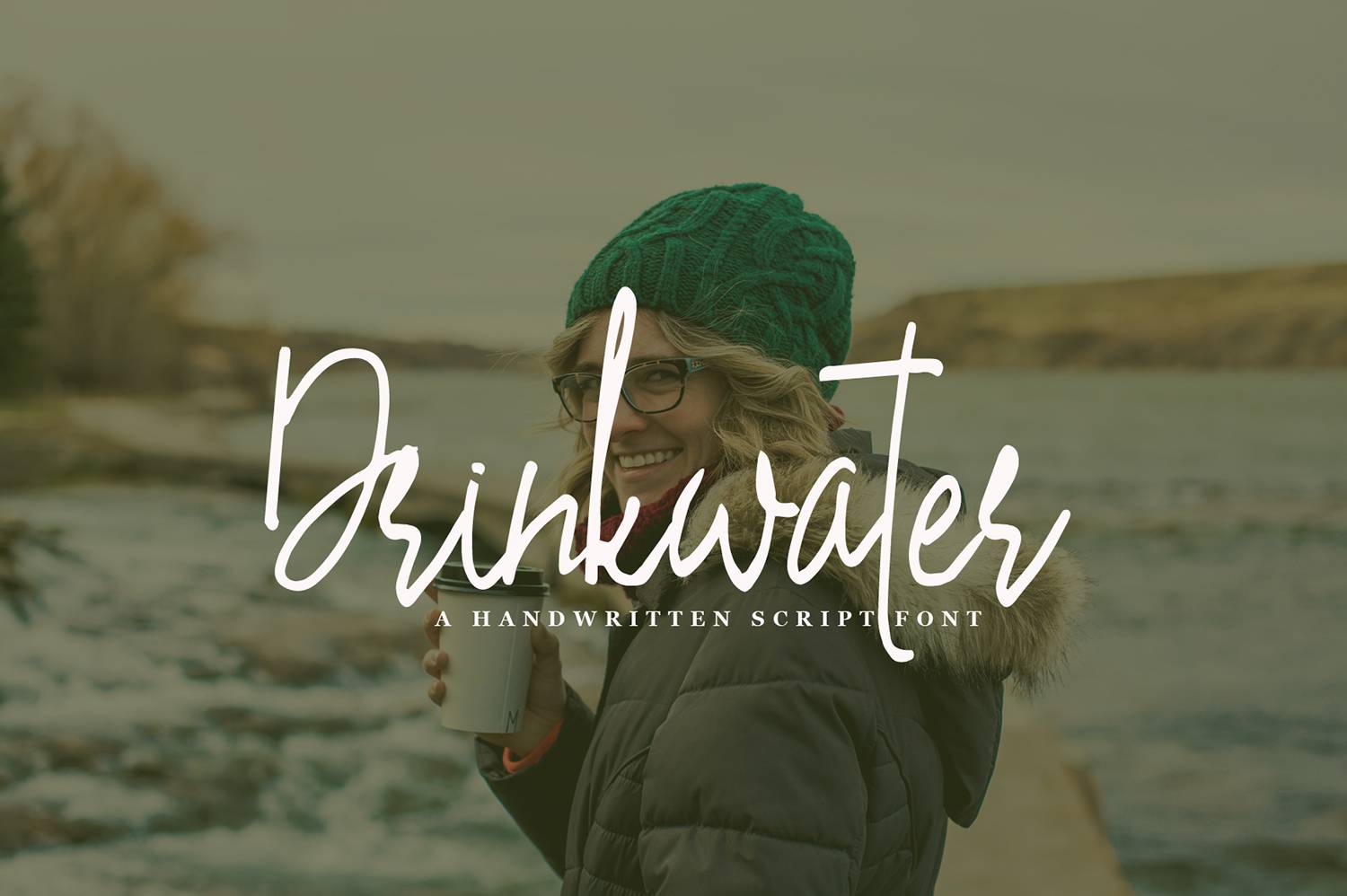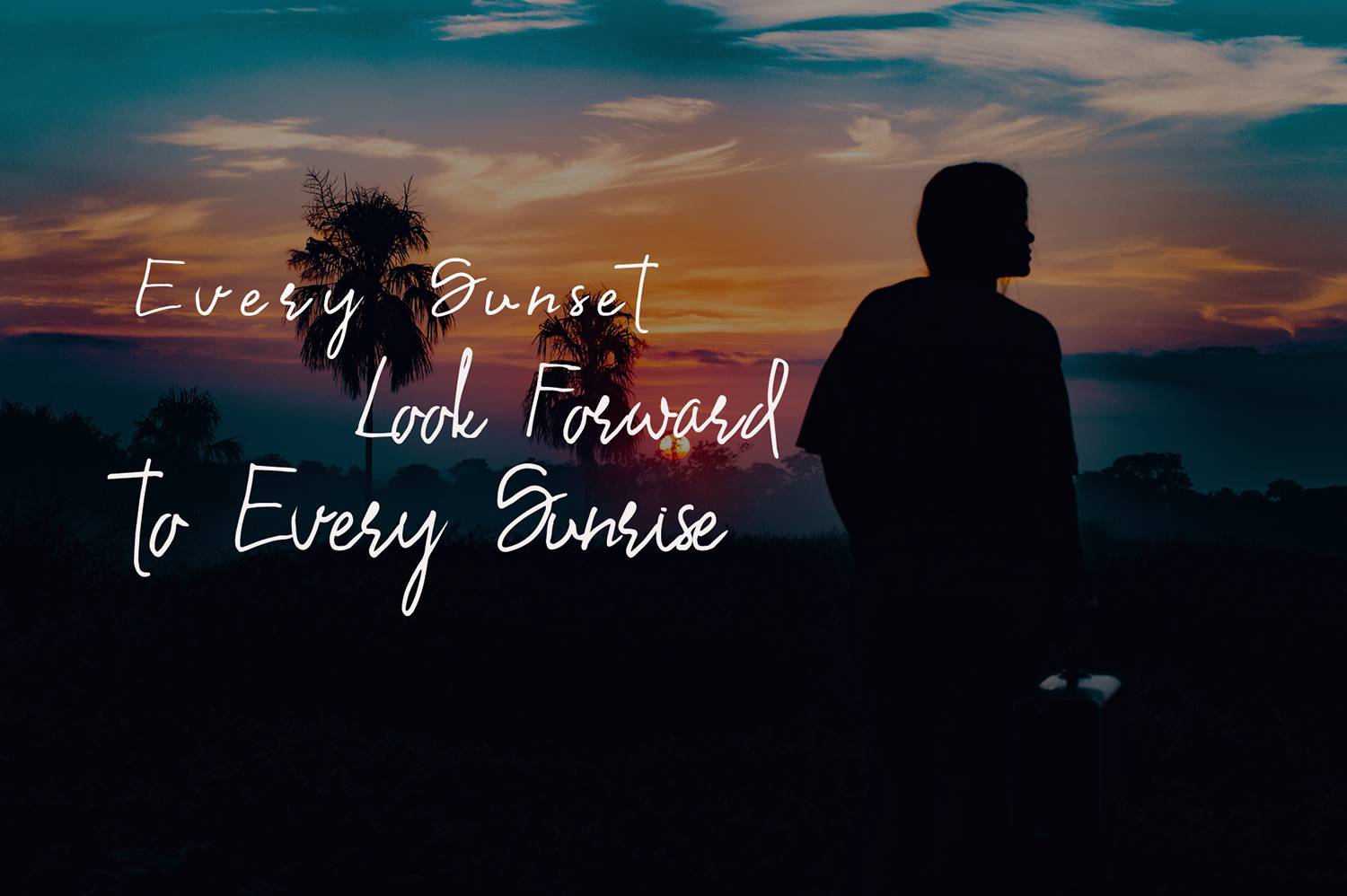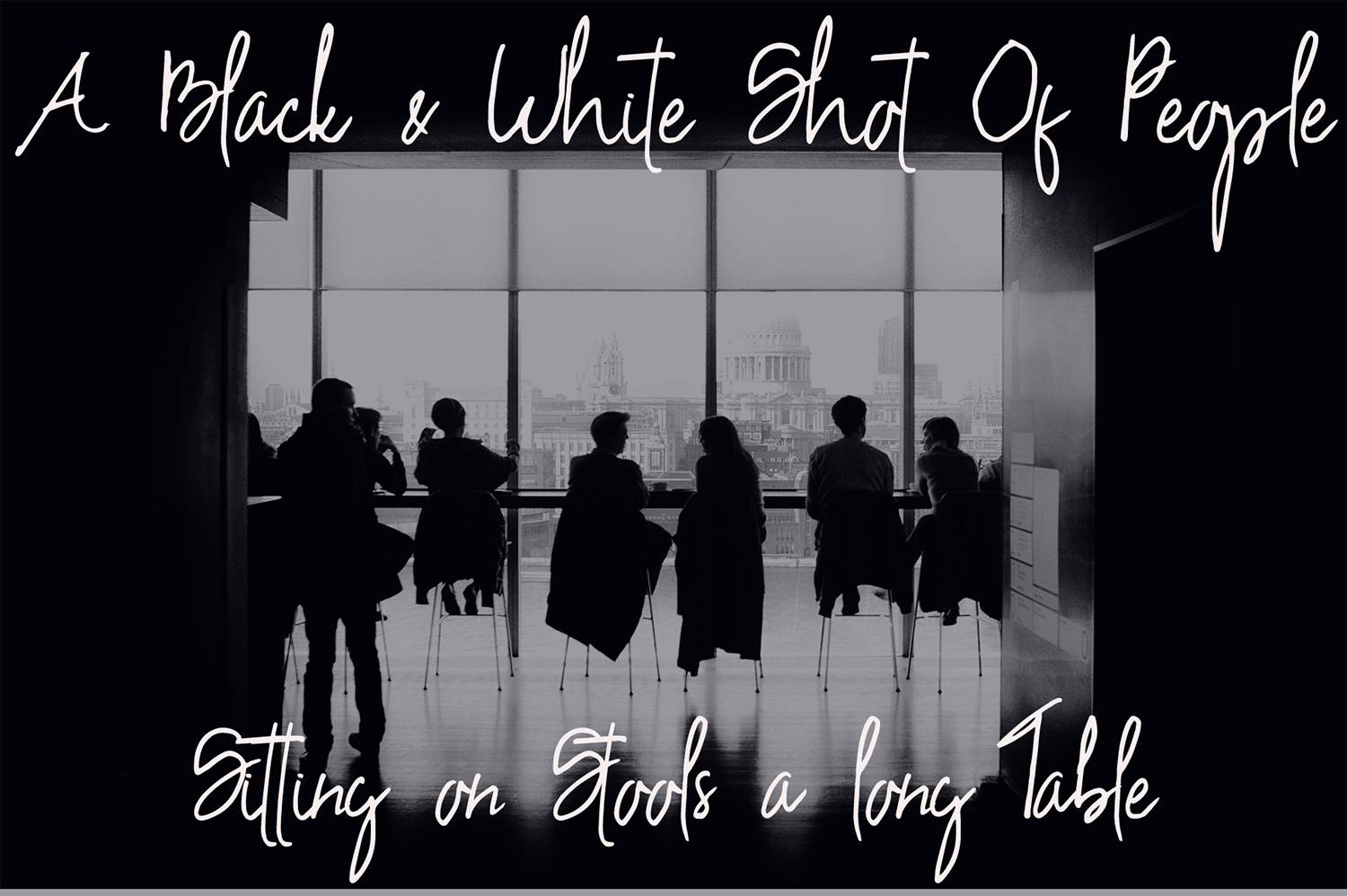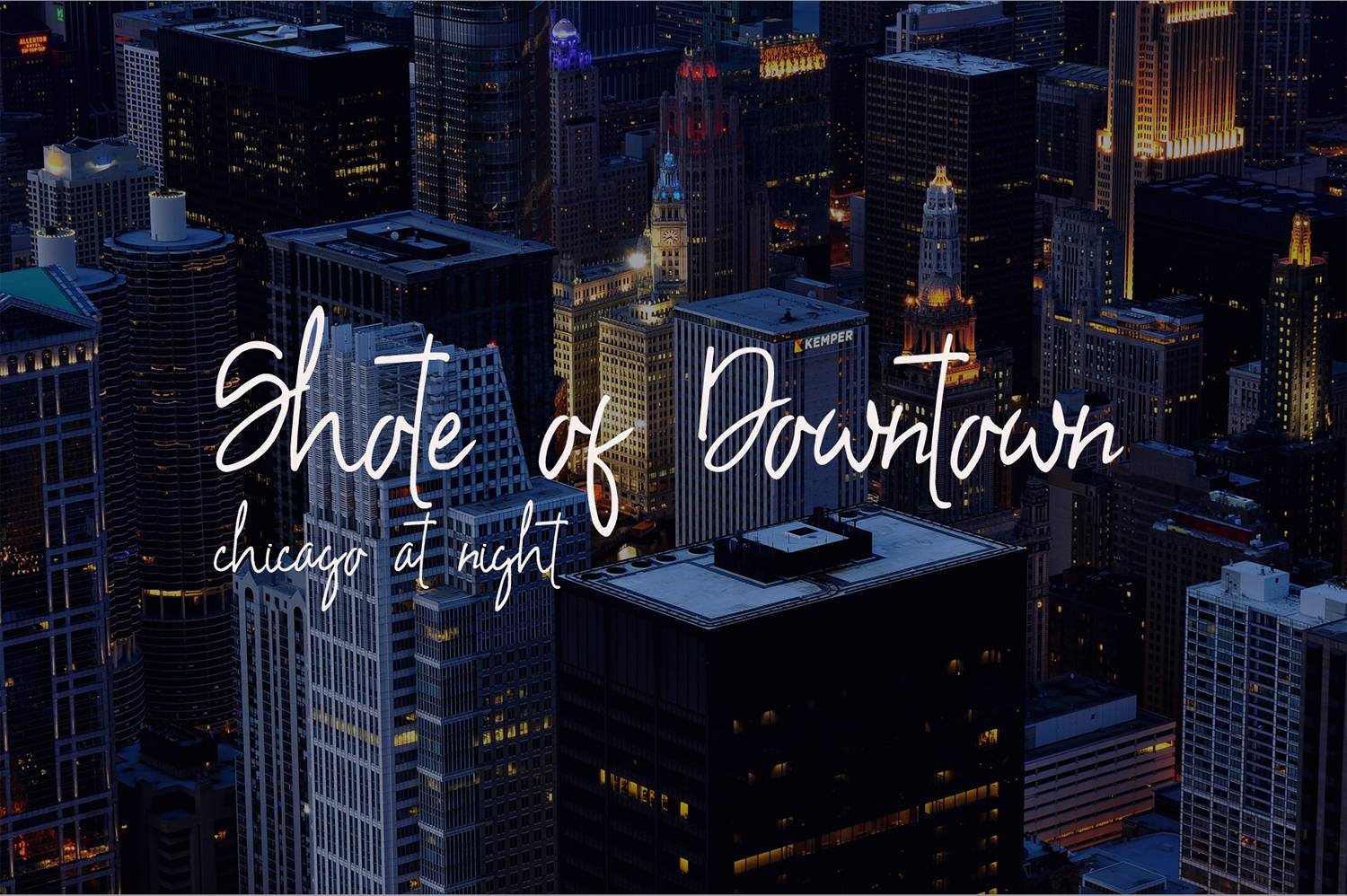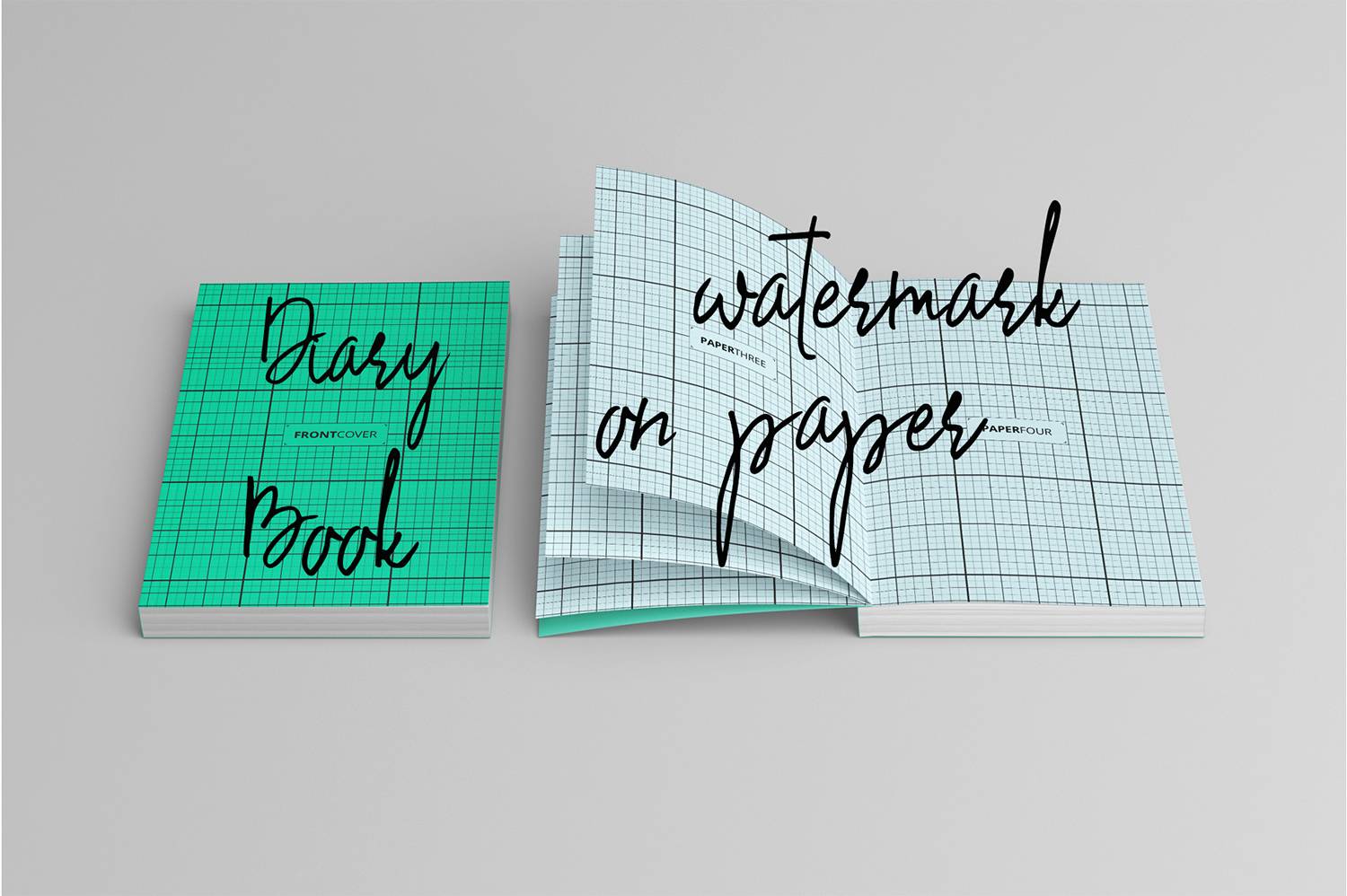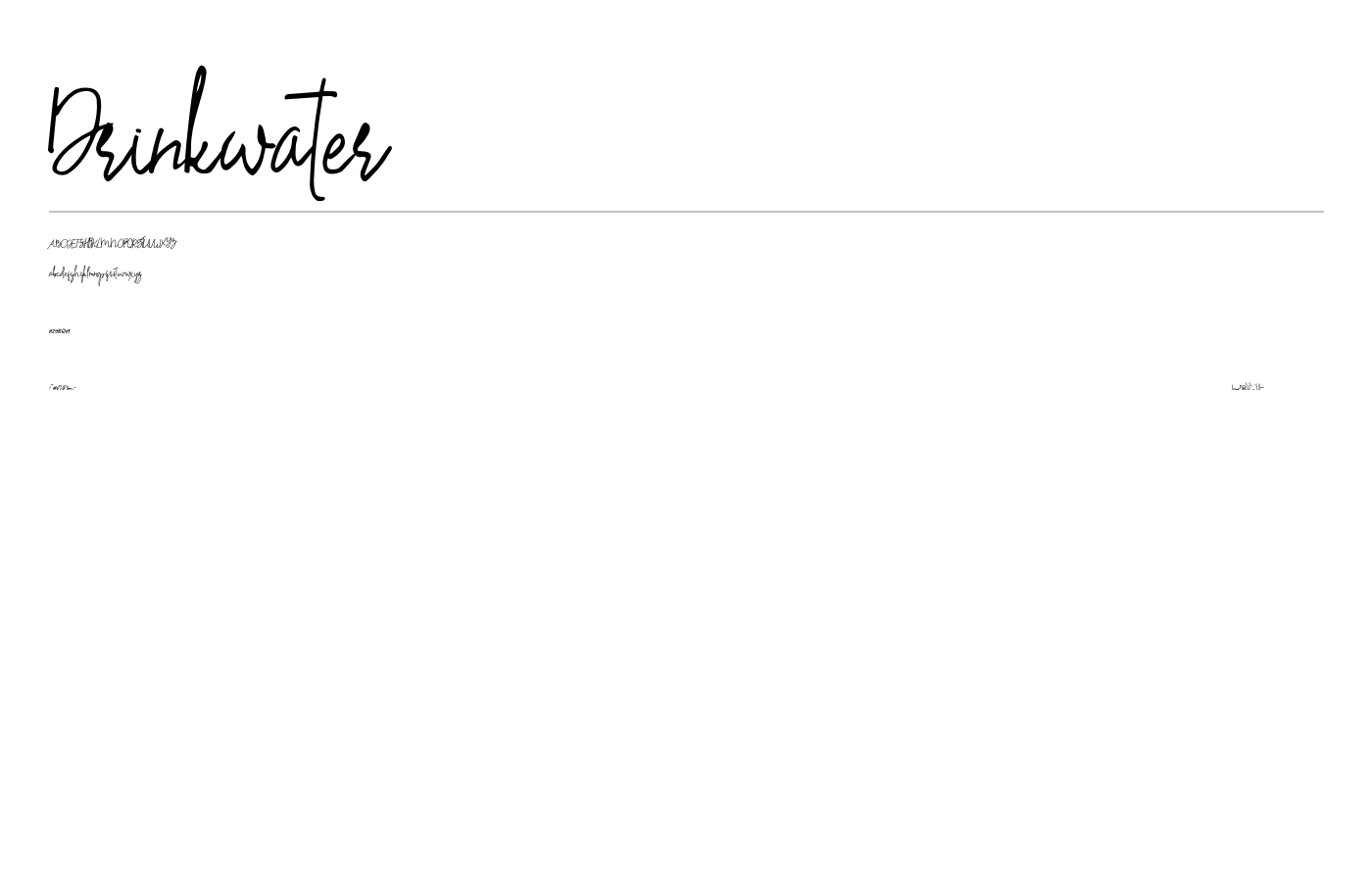
Drinkwater is a lively, handwritten script font with a casual, personal touch. Its thin, flowing strokes and irregular letterforms create an approachable and artistic feel, making it perfect for creative projects, branding, invitations, and any design seeking a warm, friendly vibe. This font shines in logos and headlines where a unique, handcrafted style is desired.
Drinkwater Font
About Drinkwater Font